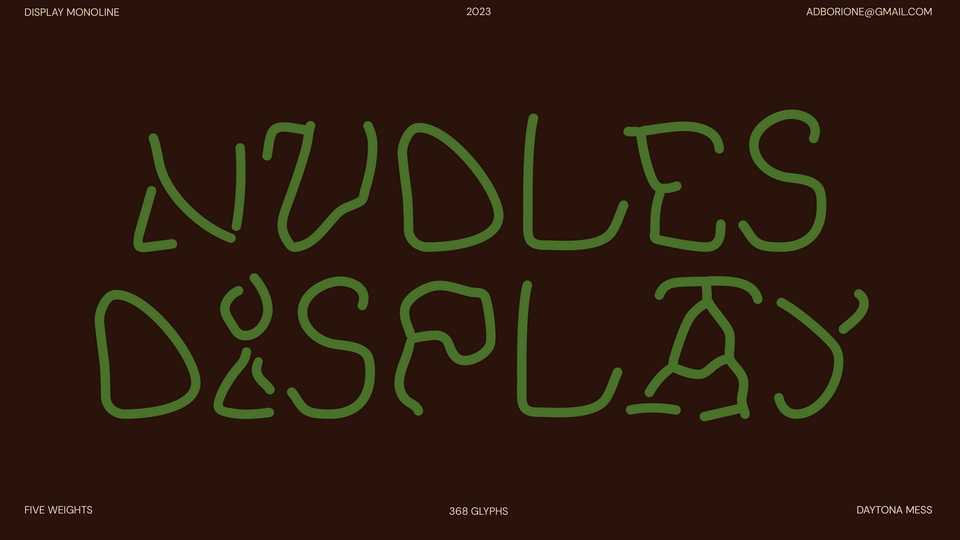
Download Nudles font, a playful and quirky handwritten typeface. It’s simple and funny style makes Nudles font incredibly versatile, fitting a wide variety of creative ideas.
Designer: Daytona Mess